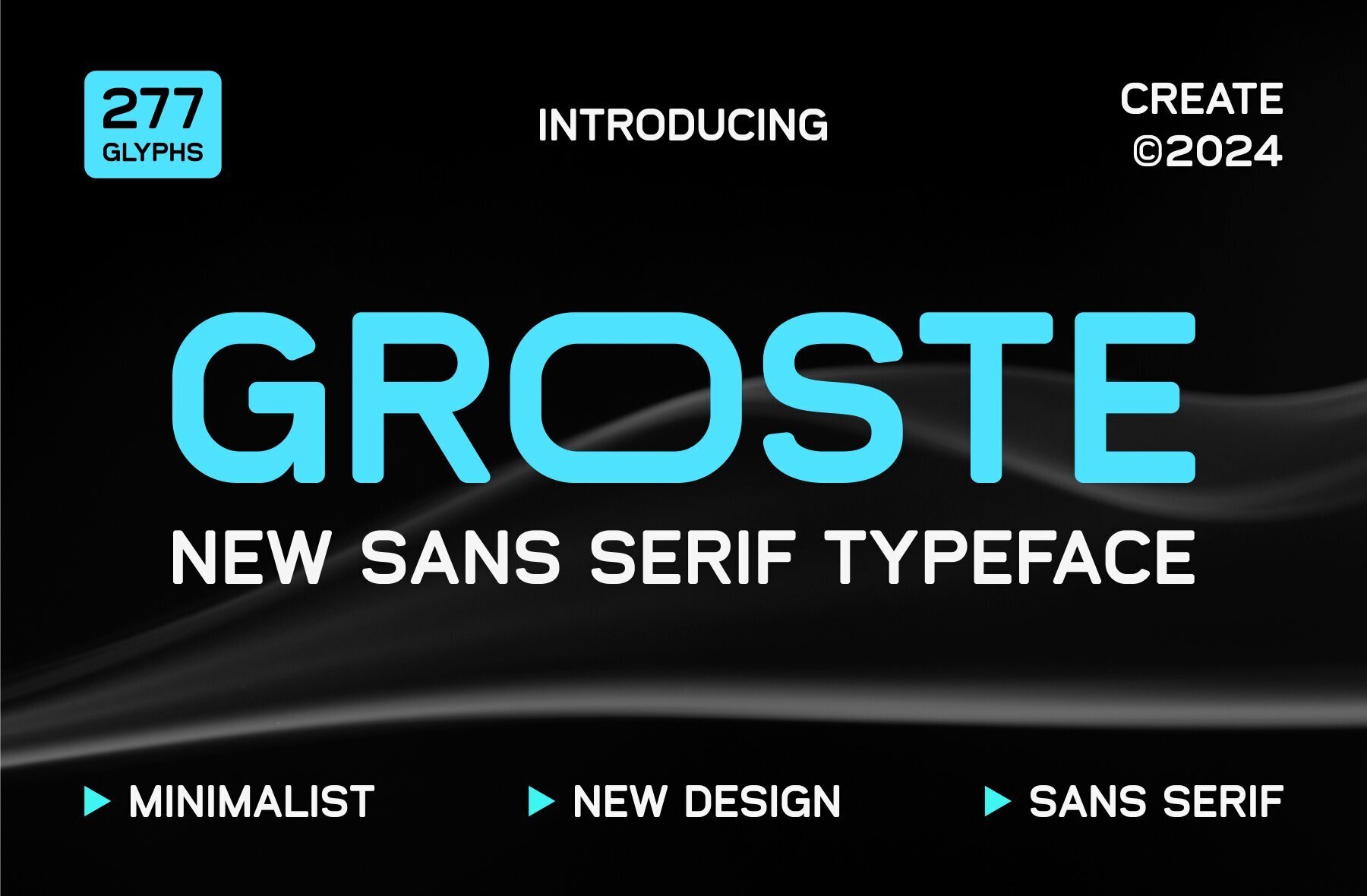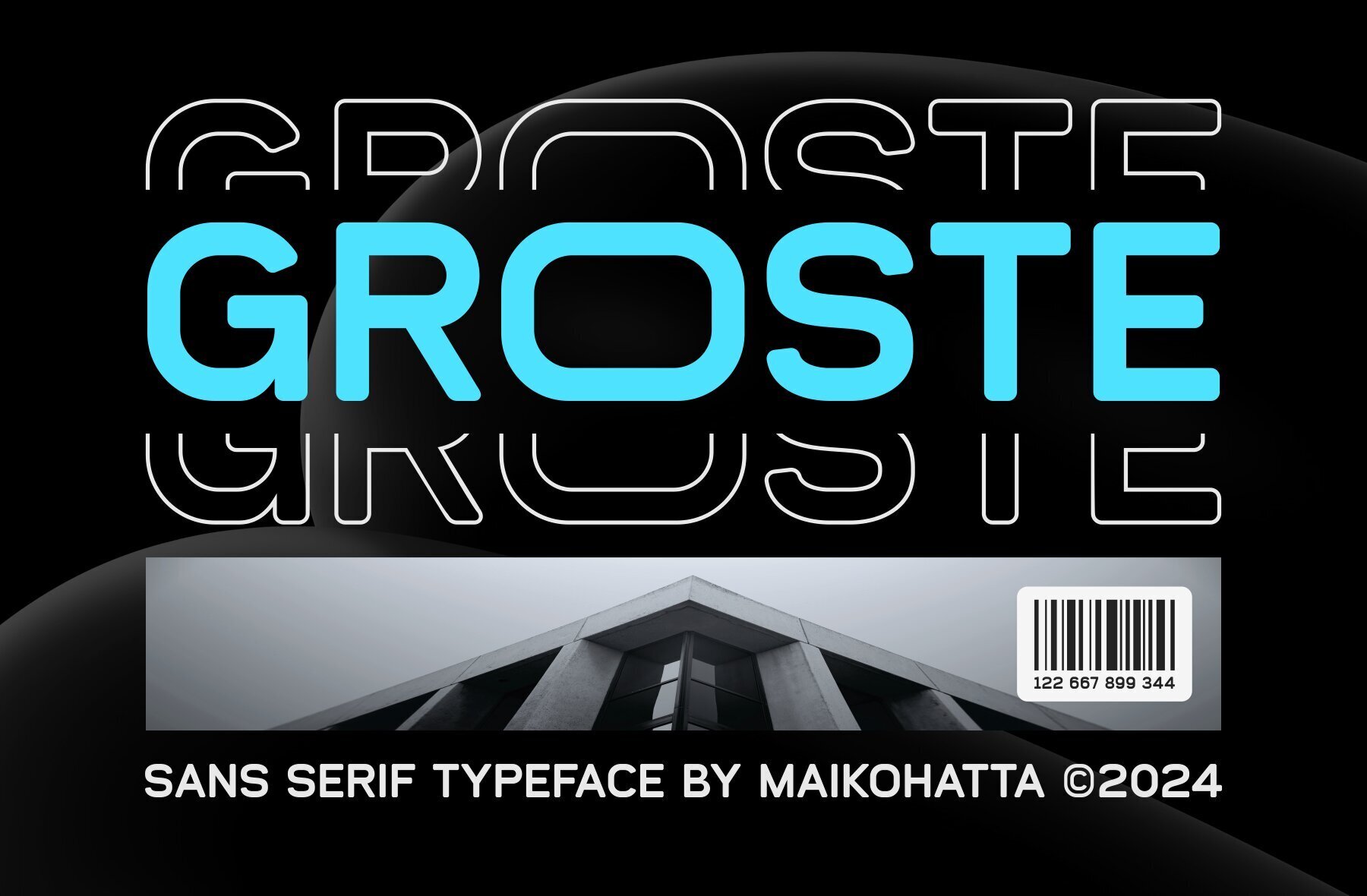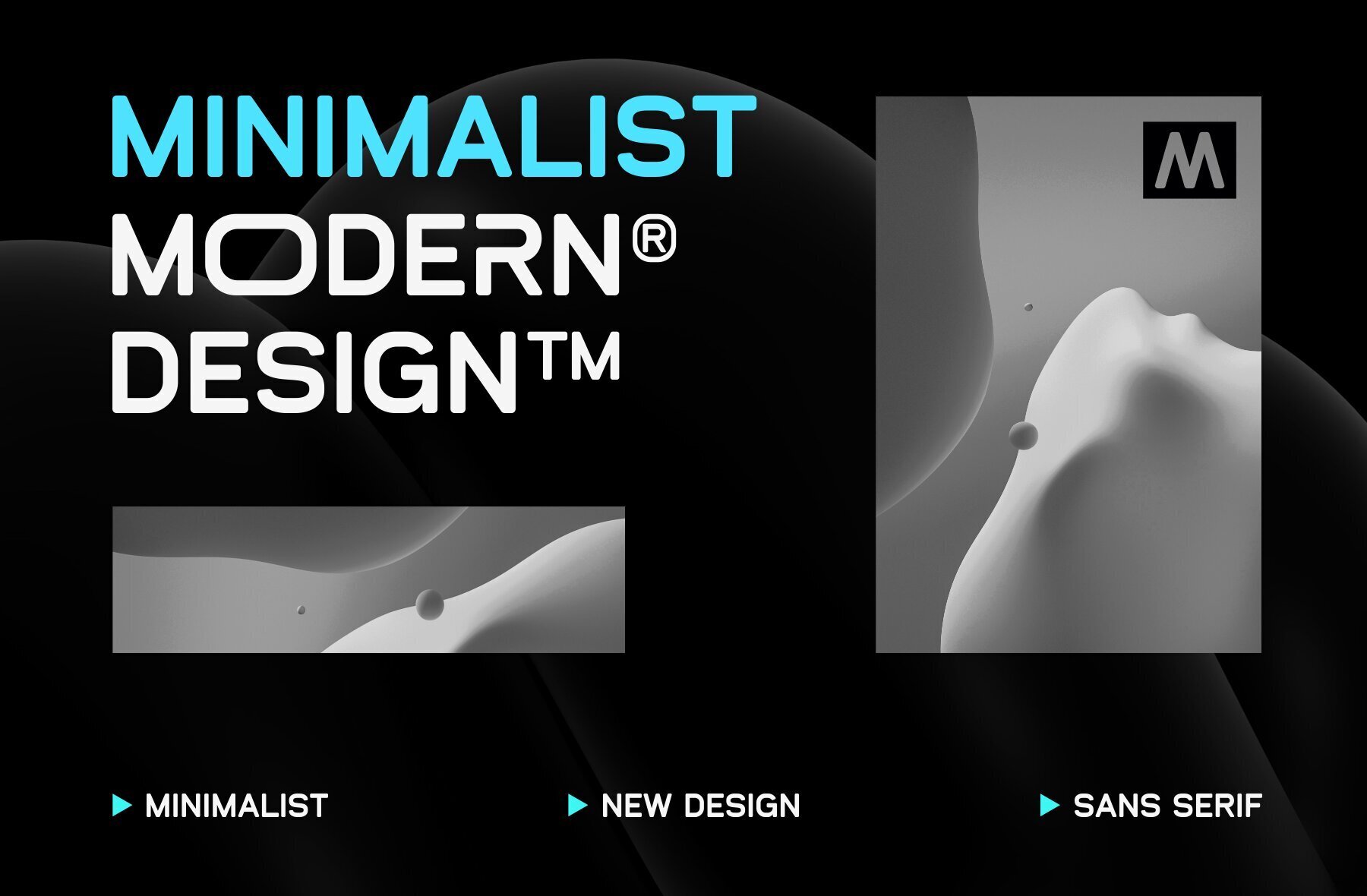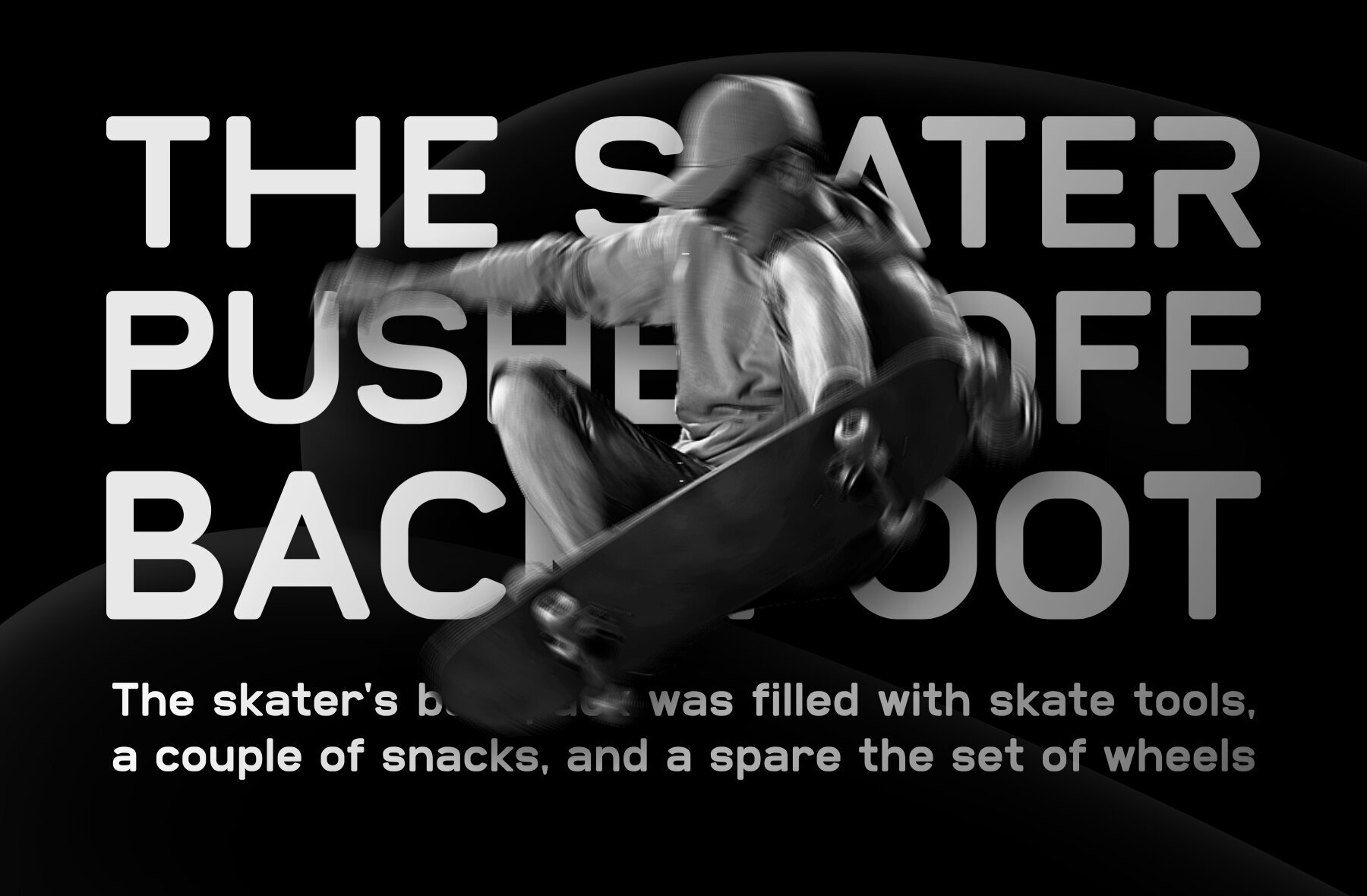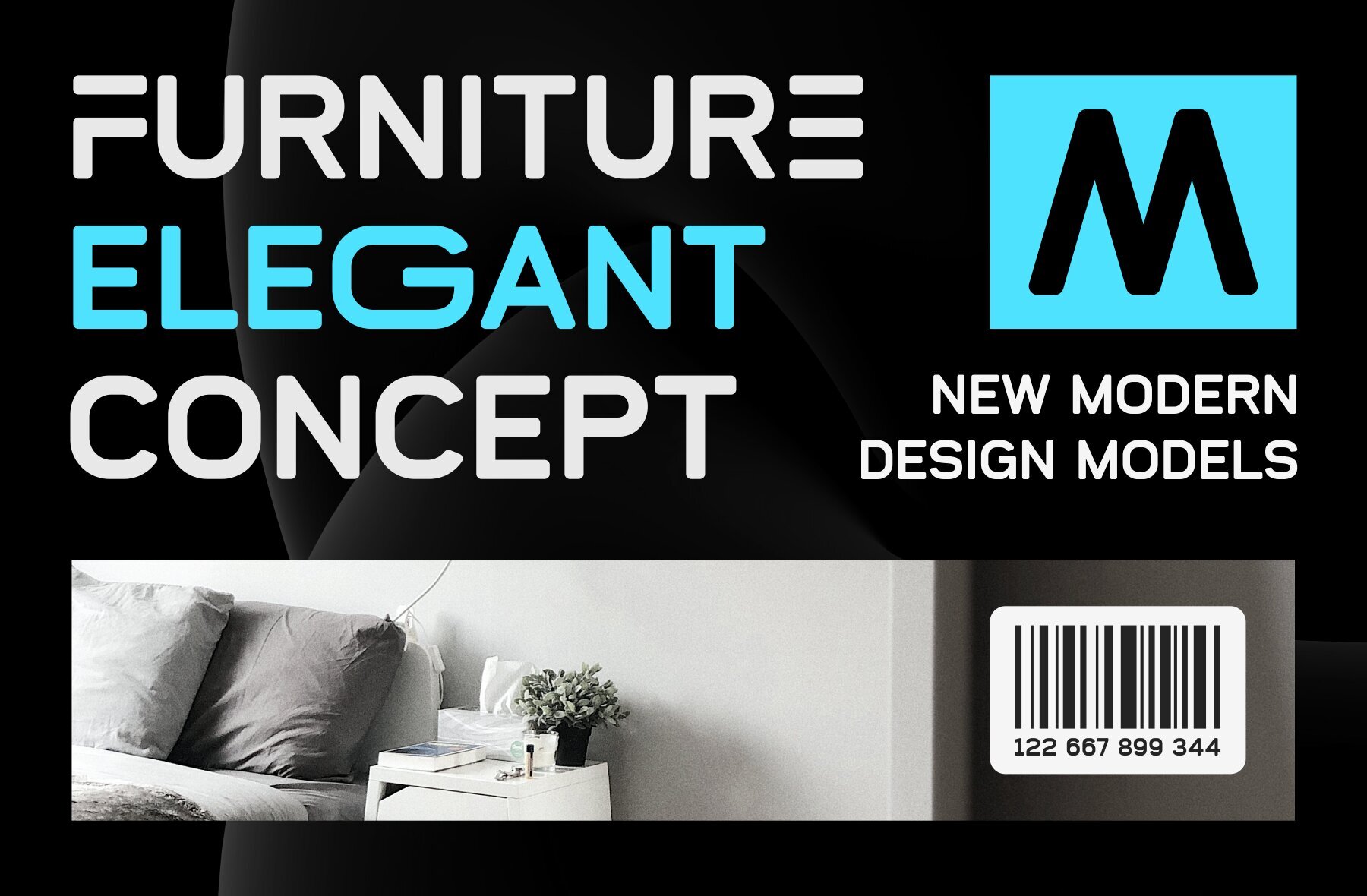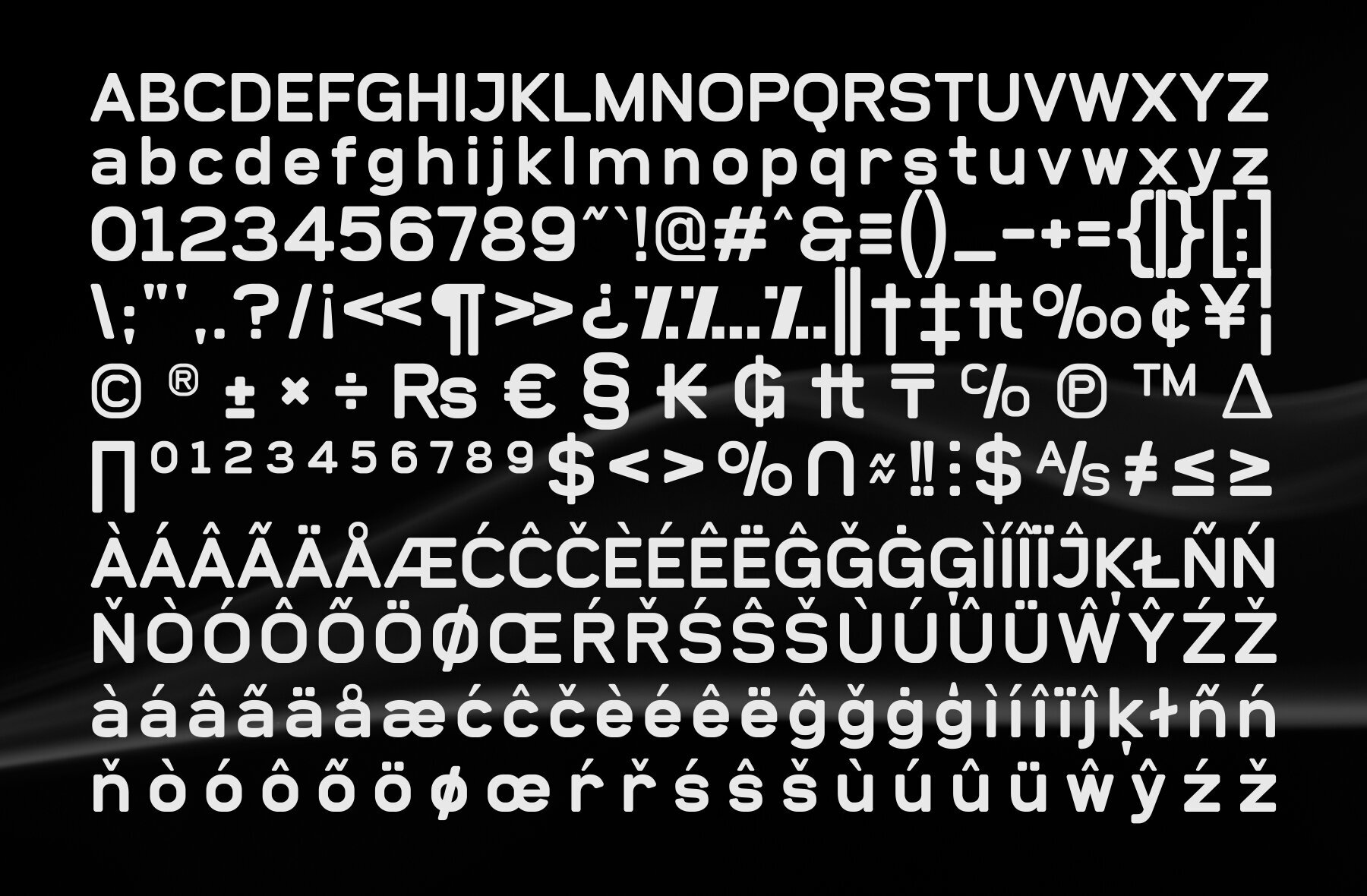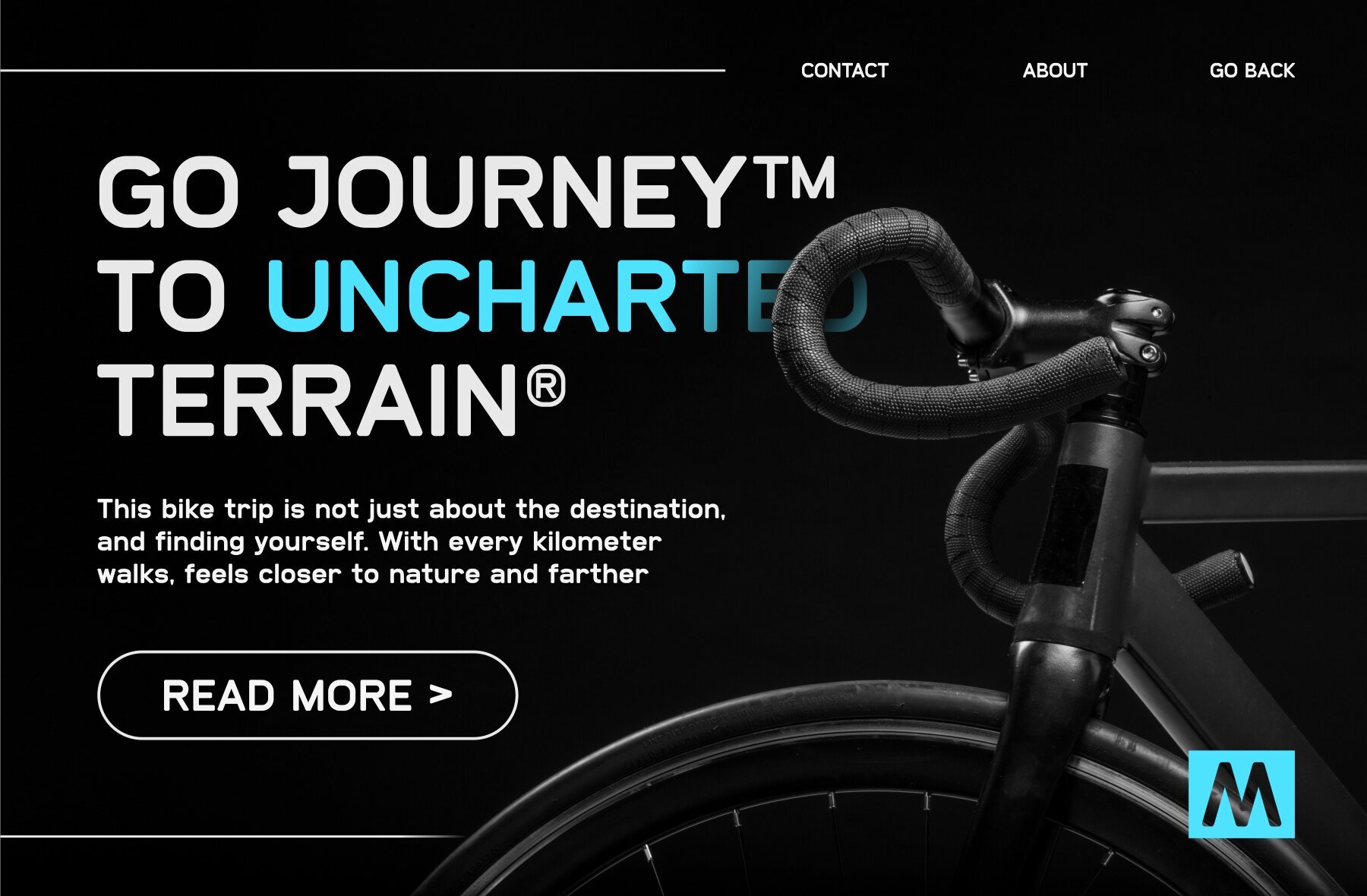
Groste Font
Groste Regular
Groste, a sans serif typeface, offers a bold and authentic design that enhances various projects. Perfect for branding ventures such as logos, template designs, esports, and more, this versatile font excels across numerous applications.Groste: Bold Sans Serif Typeface